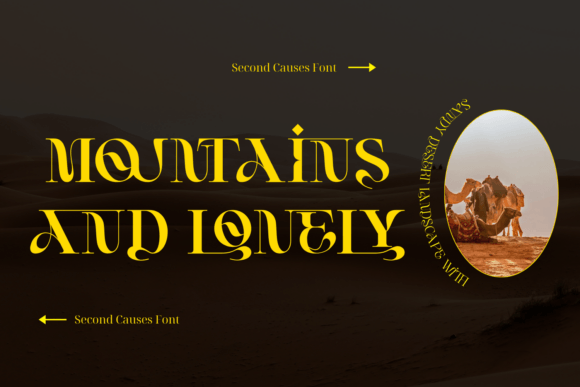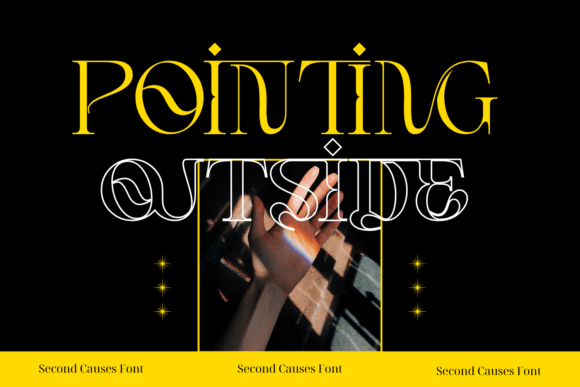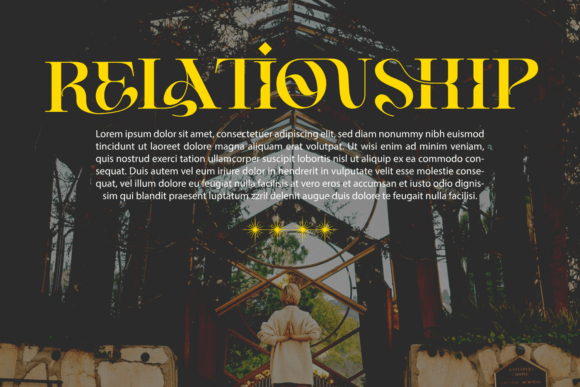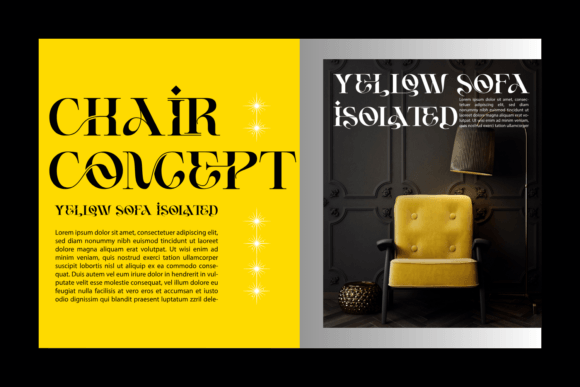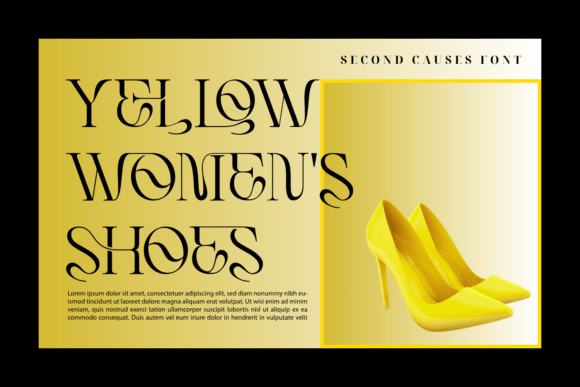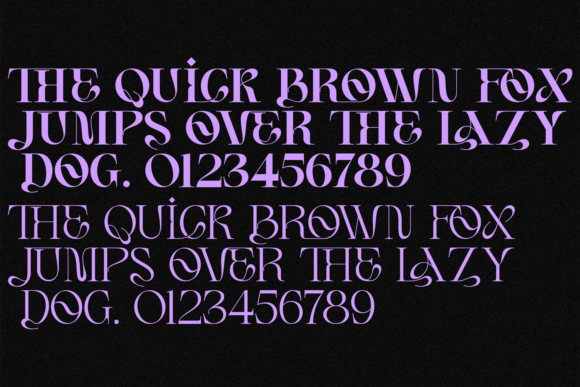
Introduction to Second Causes Font
Remember that moment when you’re working on a creative project, and you just can’t seem to find the perfect font to bring it all together? The one that screams ‘fun and timeless’ and makes your design stand out from the crowd? For many designers, that moment is a reality, but with the Second Causes Font, you can breathe a sigh of relief. This ligature serif font is a game-changer, offering a high-quality, bold retro display serif font available in regular and italic styles.
What sets the Second Causes Font apart is its stylish ligatures, which add a touch of elegance and sophistication to any design. Whether you’re working on a brochure, video, or advertising campaign, this font is sure to impress. And the best part? It’s available for free download, making it an invaluable design resource for creatives of all levels.
Key Features of Second Causes Font
- High-quality design for creative projects, ideal for graphic designers and artists.
- High-resolution design, suitable for print and digital applications.
- Unique and creative font style, perfect for adding a touch of elegance to any design project.
Honest Review: Second Causes Font
First, let’s talk about what works well. The Second Causes Font offers high quality typography that’s perfect for designers looking for a modern and clean aesthetic. The font’s transparent background makes it easy to use on various backgrounds, which is a huge plus. The font family includes a wide range of styles, from light to bold, giving designers plenty of options to choose from. ✨
Overall, I’d say the Second Causes Font is a solid design resource that’s worth checking out. While it’s not perfect, its high quality typography and wide range of styles make it a great option for designers looking for a free download. Just be sure to review the terms of use carefully before using it in your project.
- High quality typography
- Wide range of styles
The Second Causes Font is a high-quality, free download design resource ideal for creative projects. Its transparent background makes it versatile for various applications.
The Second Causes Font is suitable for various creative projects, including graphics, logos, and digital art. Its transparent background makes it ideal for use with images and videos.